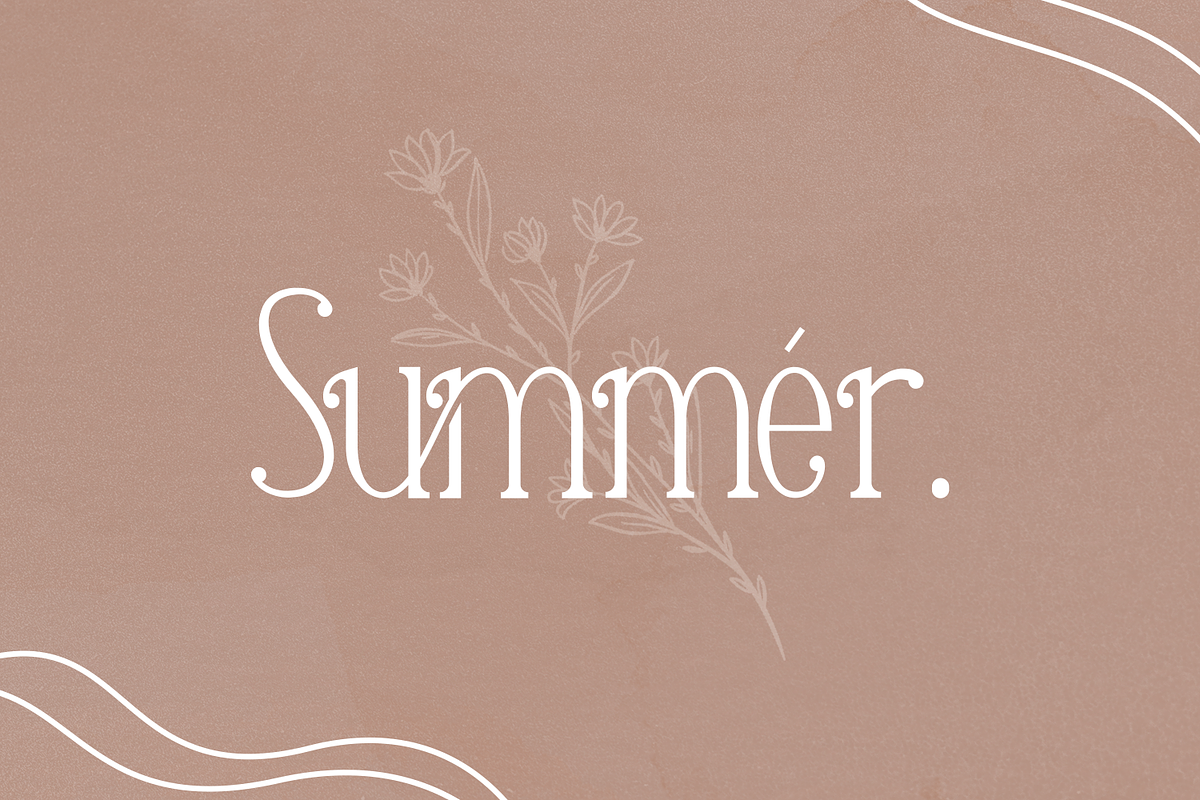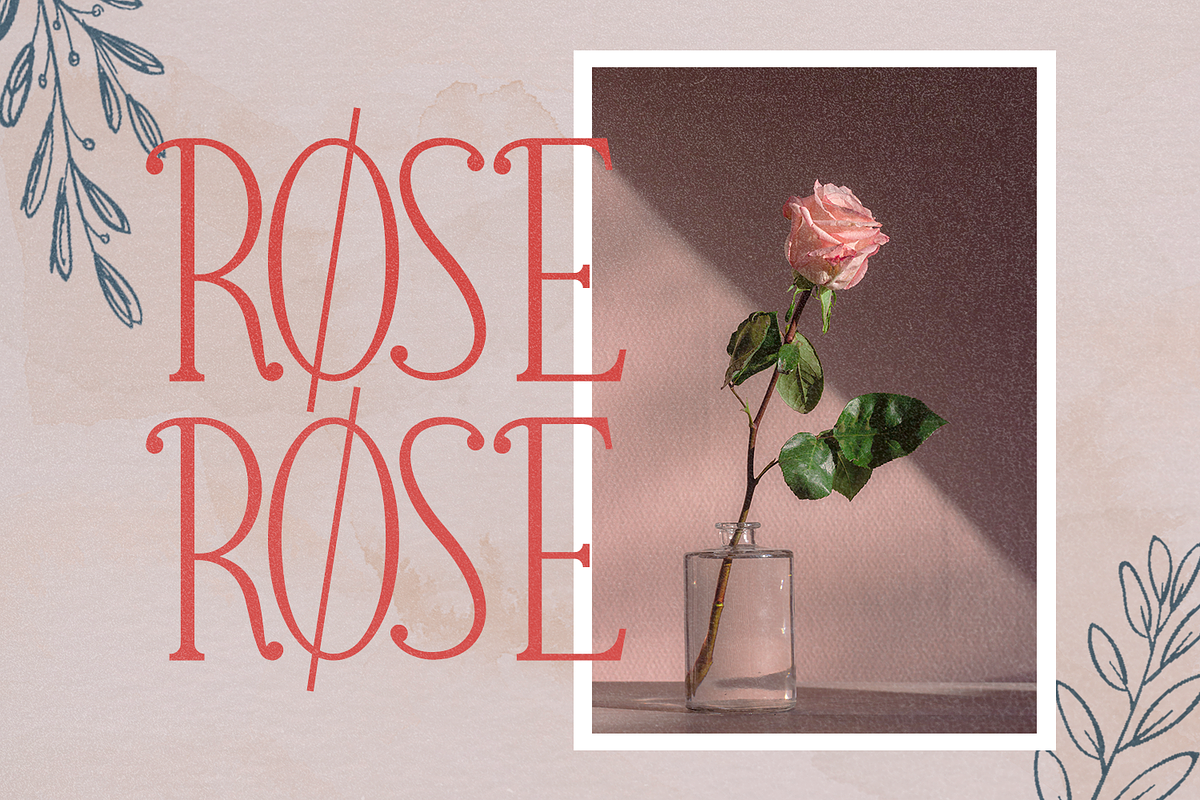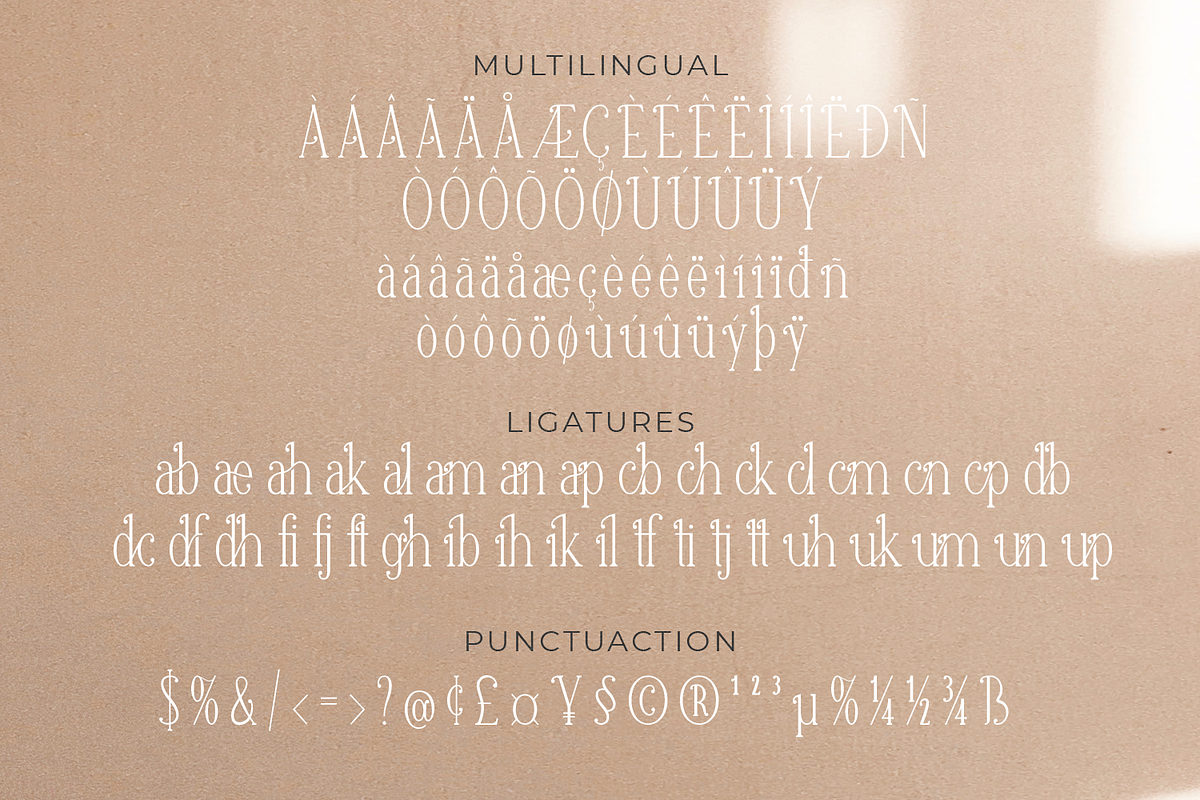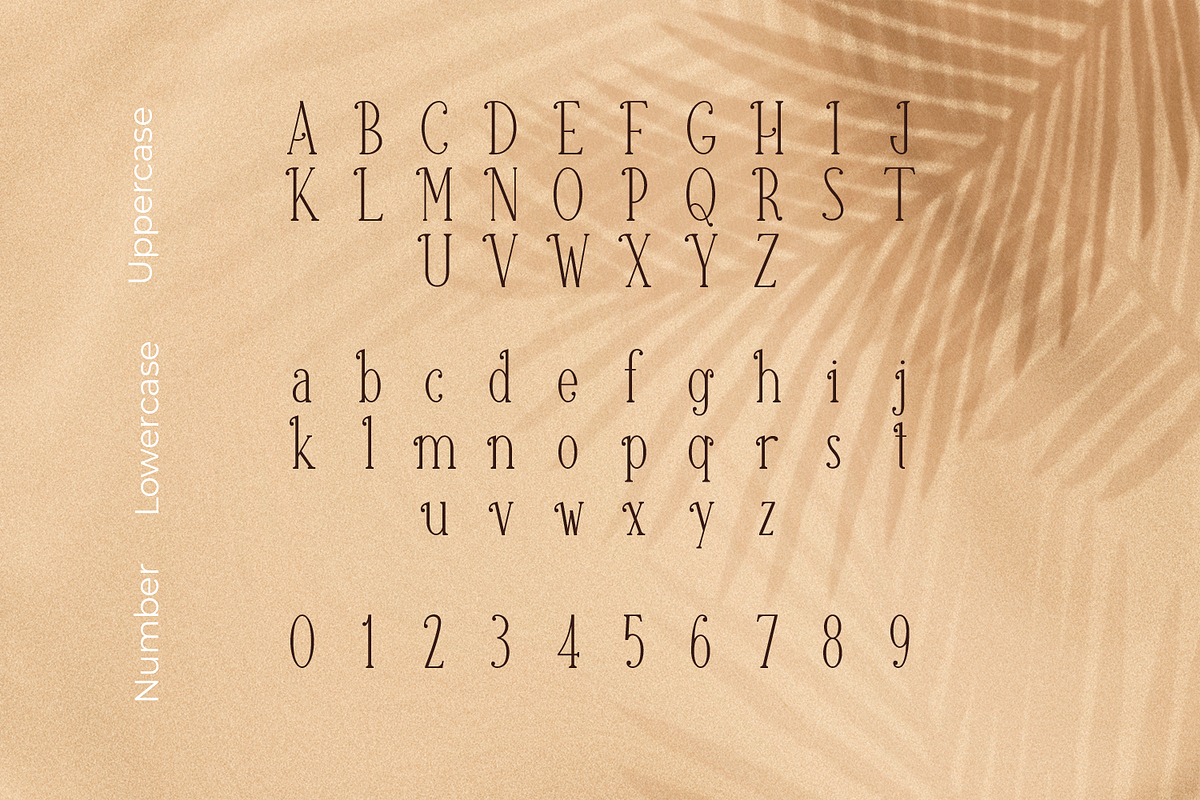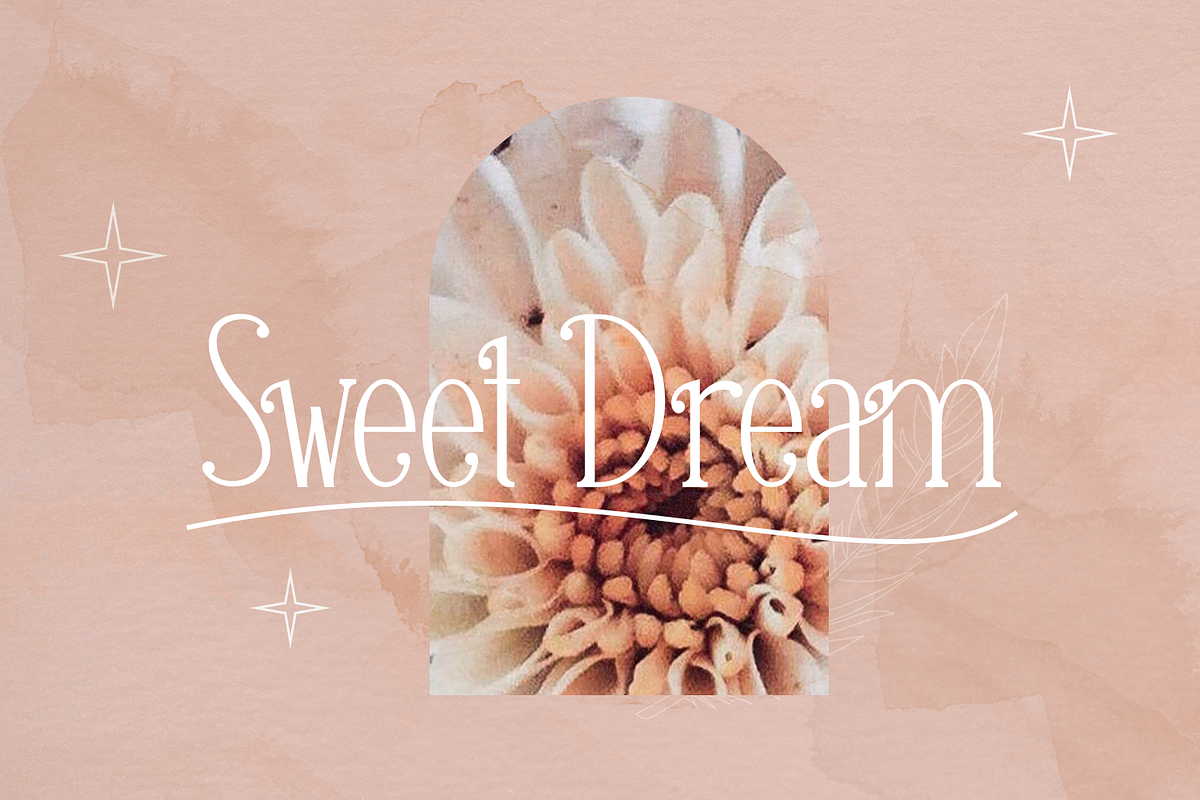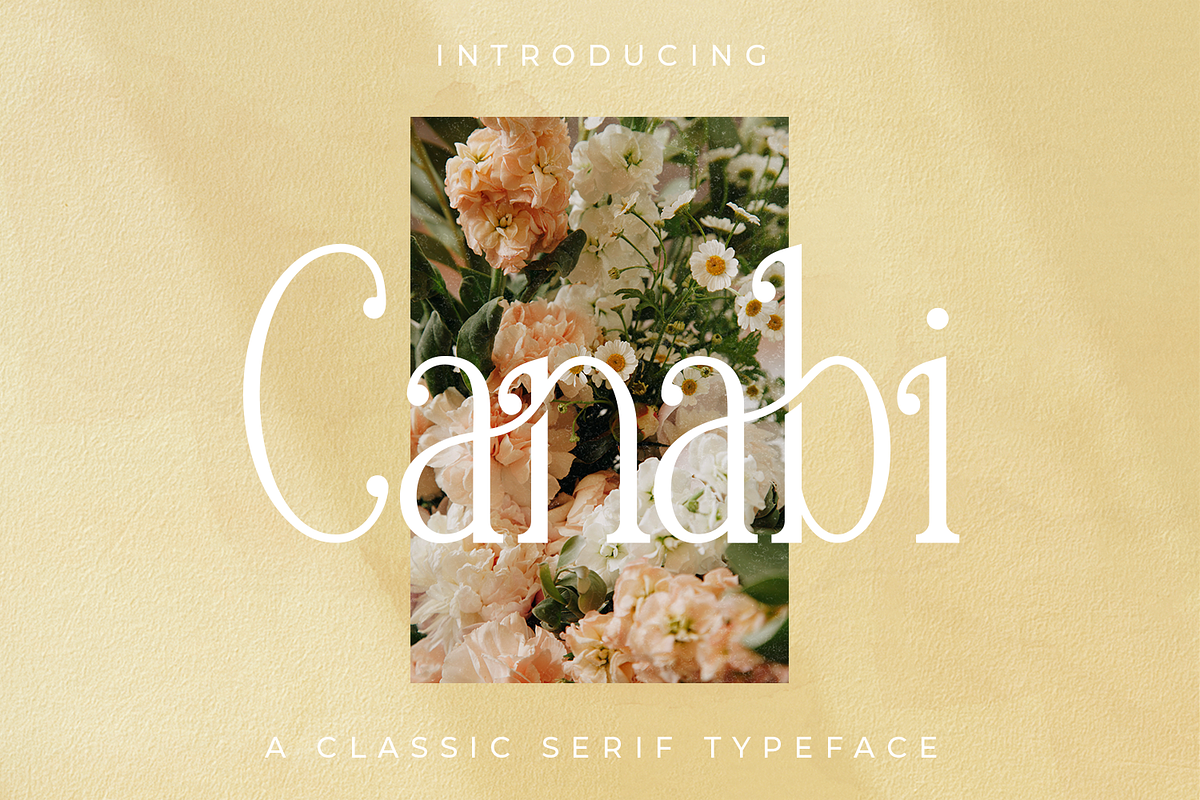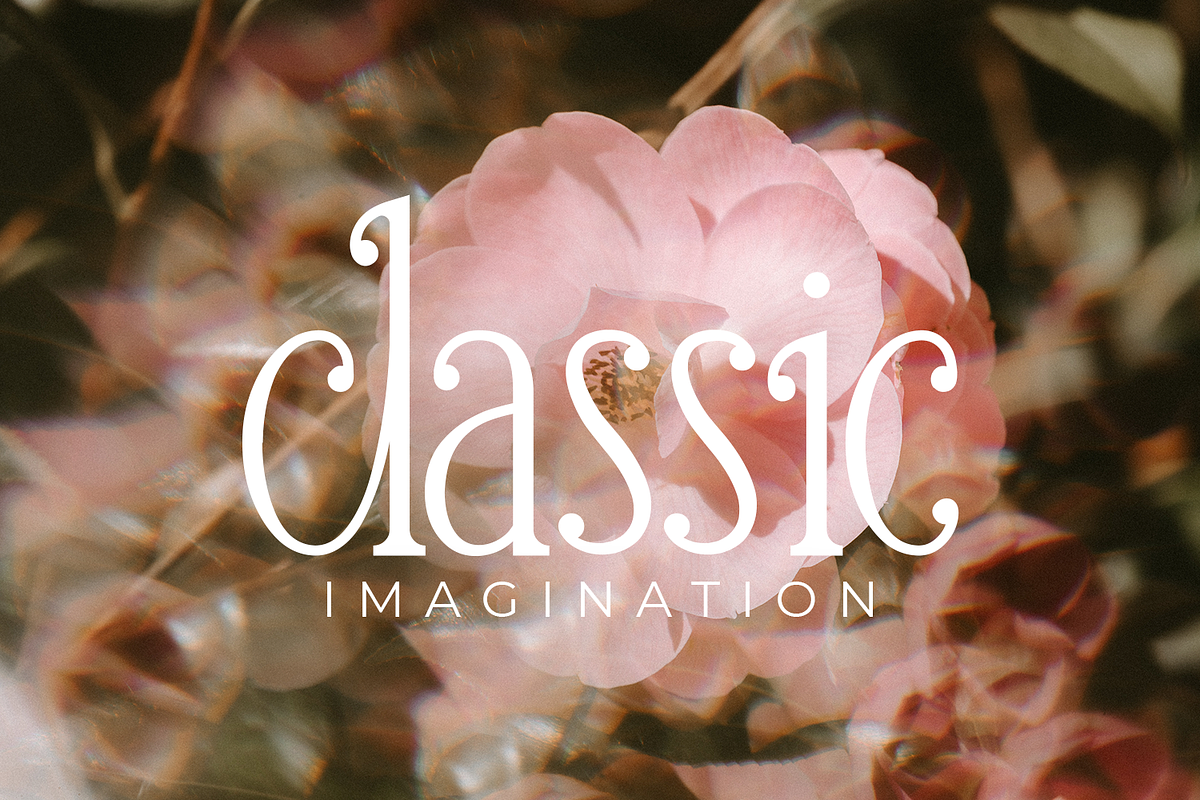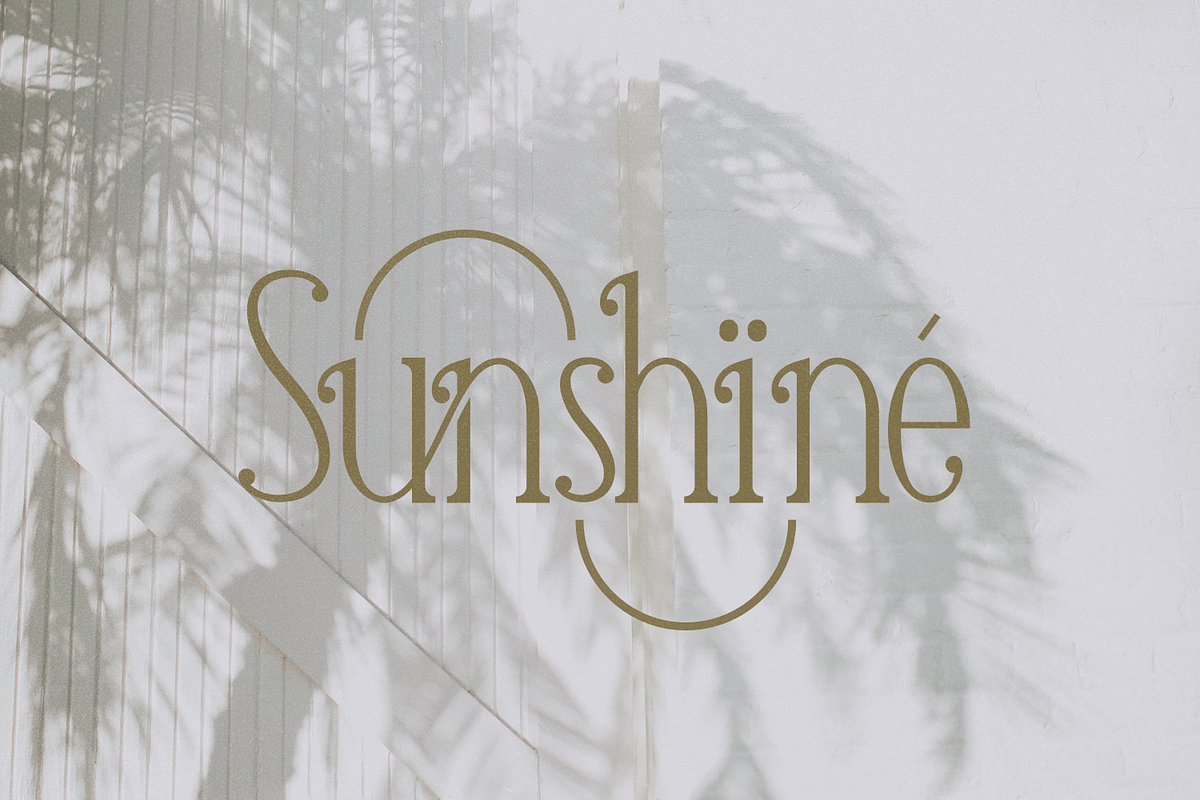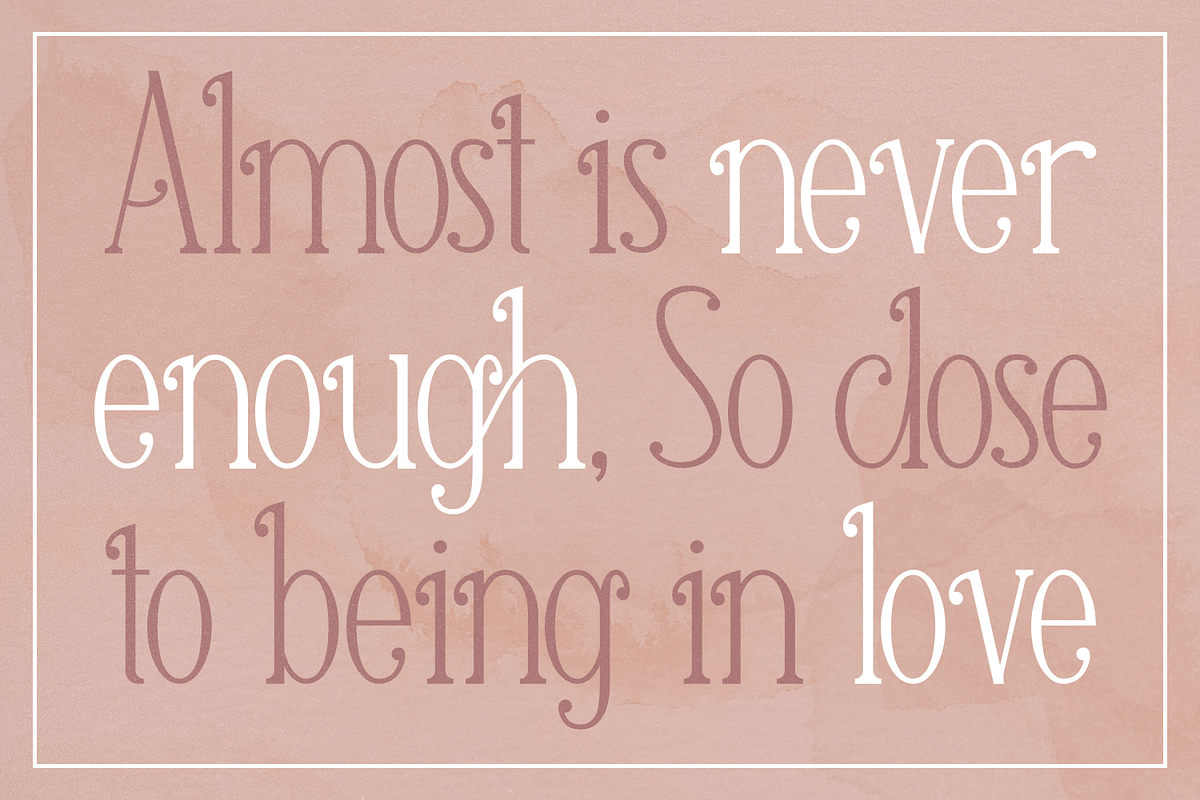
Canabi | A Classic Serif Font
PRIME RELEASE! CANABI - The Classic Serif
CANABI - A classic serif font designed for logo, headline, and suitable for classic design. Combination between serif and condensed style! This is our first product and we will give you the best experience!
- Multilinguals
- Numbers & Punctuactions